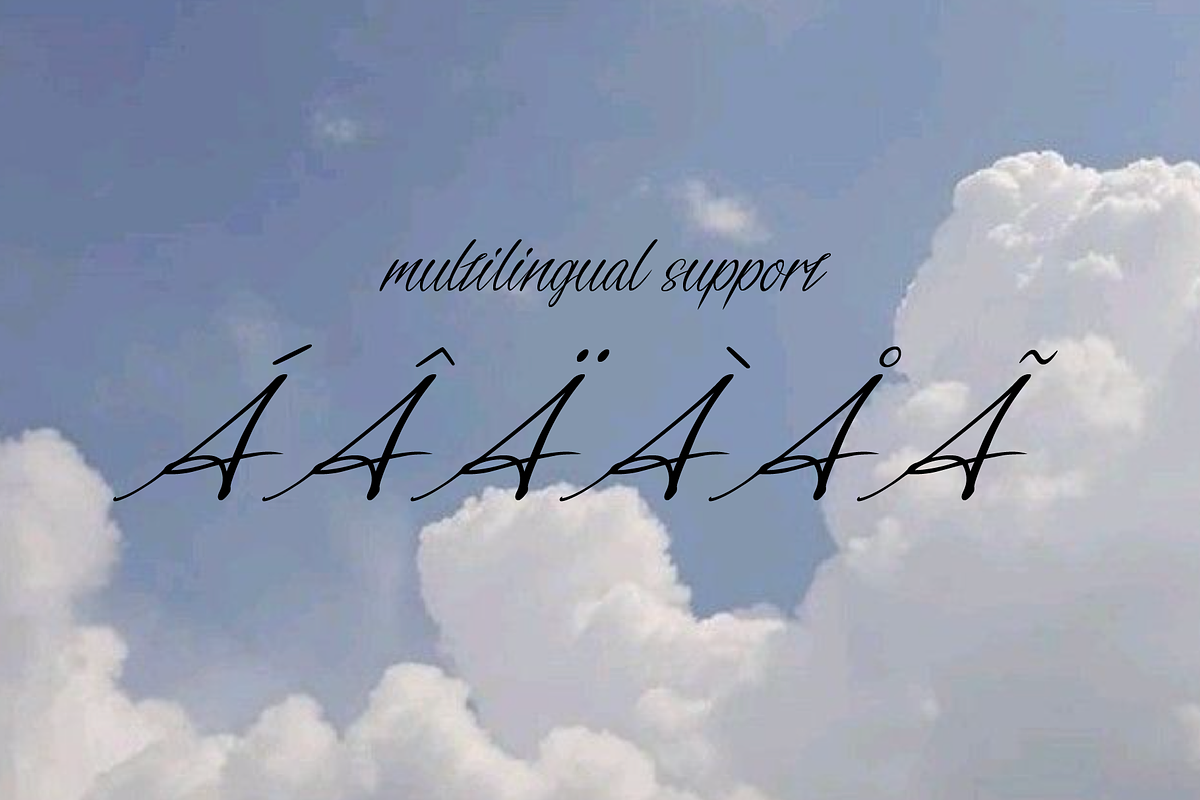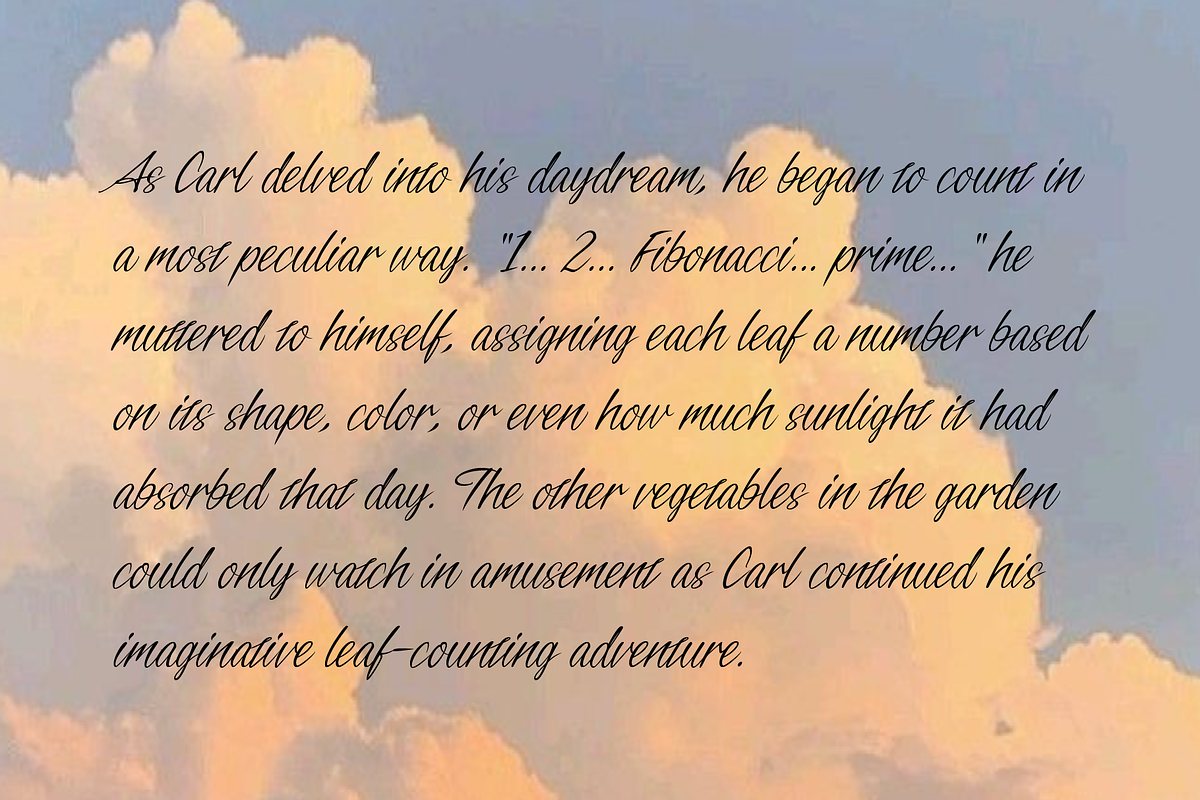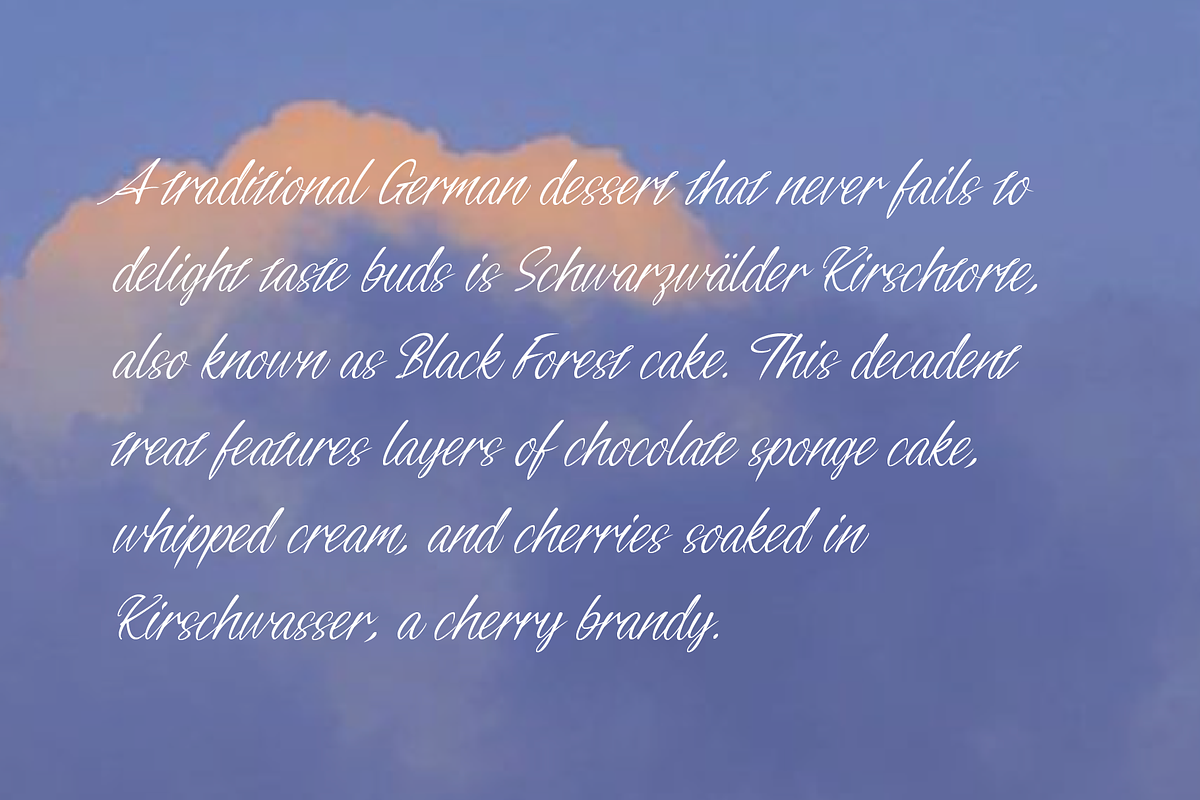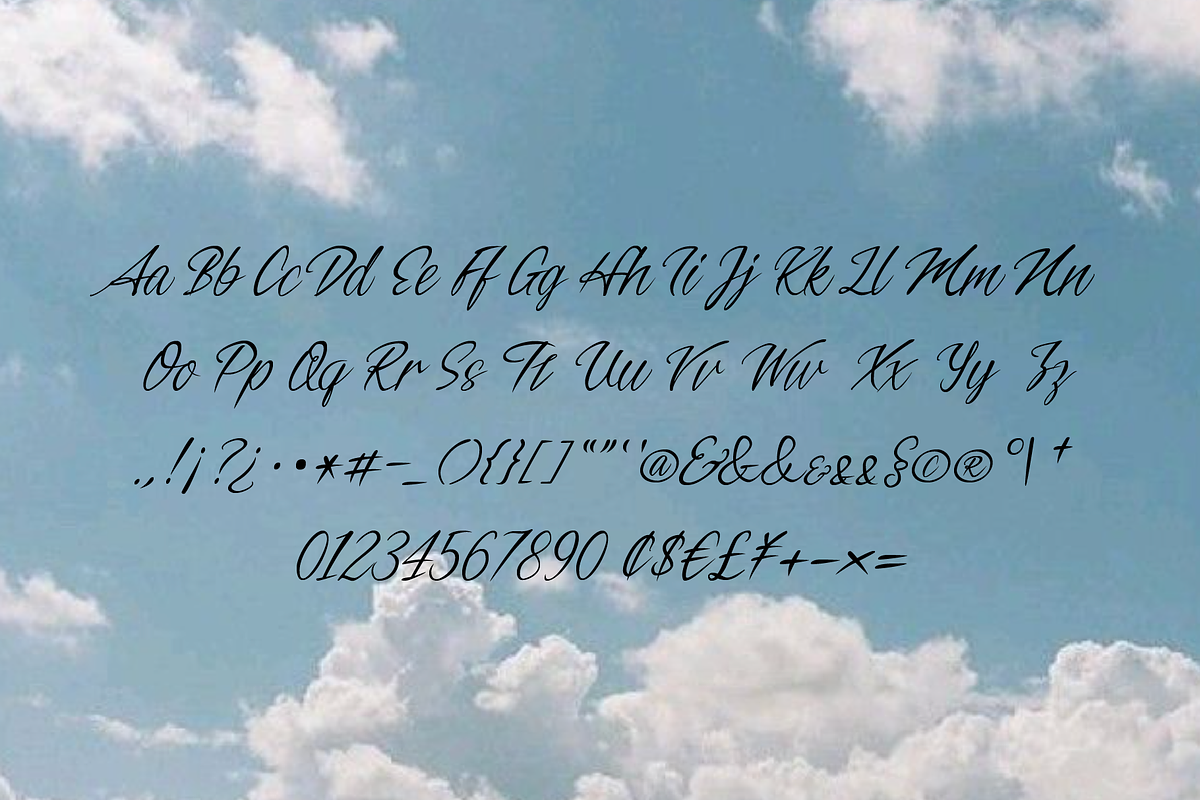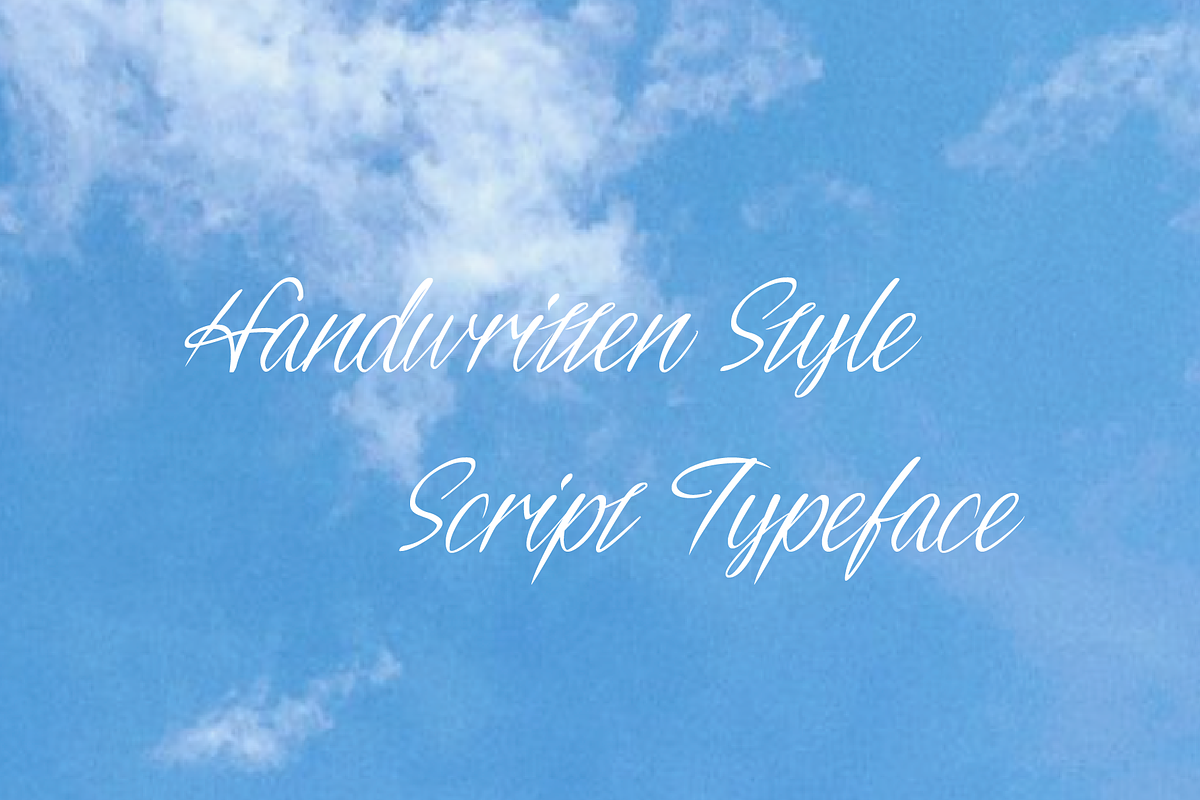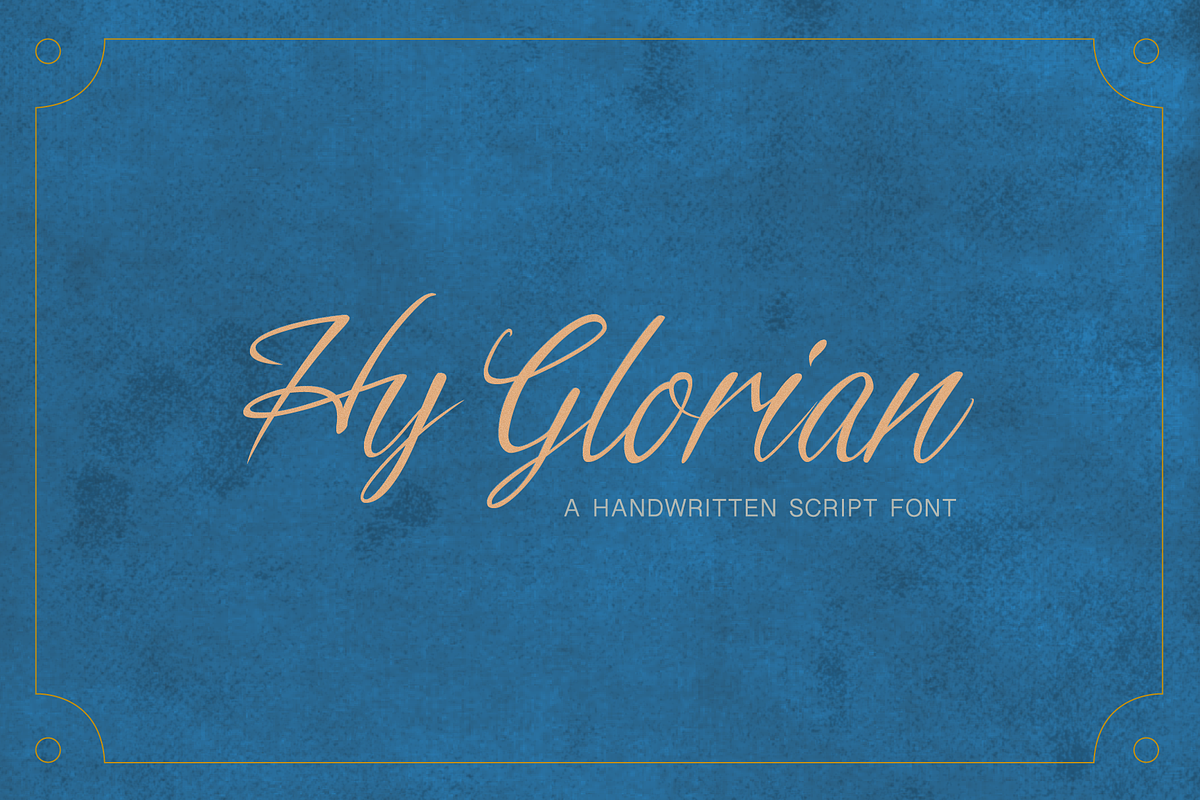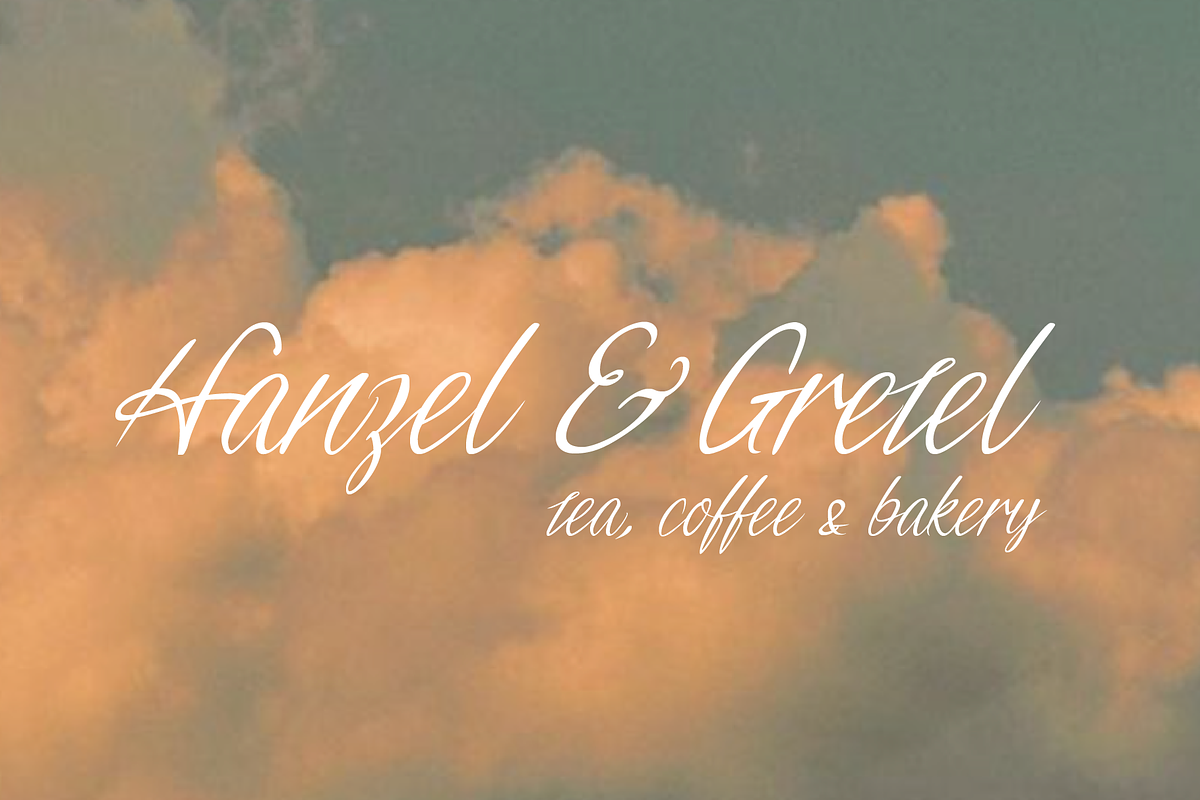
HY Glorian | Handwritten Script
Hy Glorian is a handwritten style script typeface designed to bring a modern, fresh, and lively touch to your projects.
Created with simplicity and ease of use to present words or paragraphs, Hy Glorian exudes a smooth and realistic hand writing feel that will make your art or any other design project stand out.
I love its strokes of this font dance across the screen like a gentle summer breeze, adding a touch of whimsy and charm to my content. I personally designed Hy Glorian to use it for my vblog showcasing my summer holiday adventures in Europe. And now I hope to share the joy and happiness this font brings me with all of you. Happy Holiday!